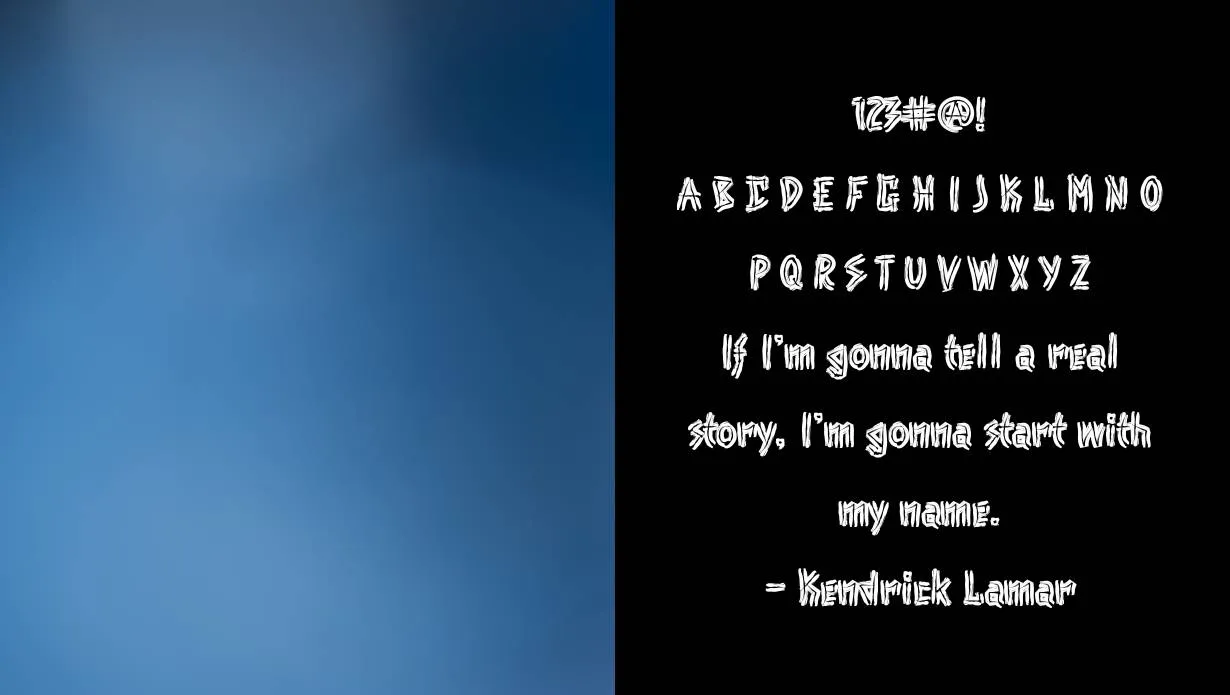
Punk Font is a classic brush typeface that has been used in many various places. The font is elegant and easy to read, making it perfect for gaming logos. This font has a very unique and rough texture that is suitable for creating logos.
This Font was created by a well-known foundry named Gaut Fonts. This foundry also designed fonts that gain very much popularity in a very short time.
If you want to see the alternative of this typeface and want to pair them then butteries font is the best option for you.
| Name | Punk Font |
| Designer | Gaut Fonts |